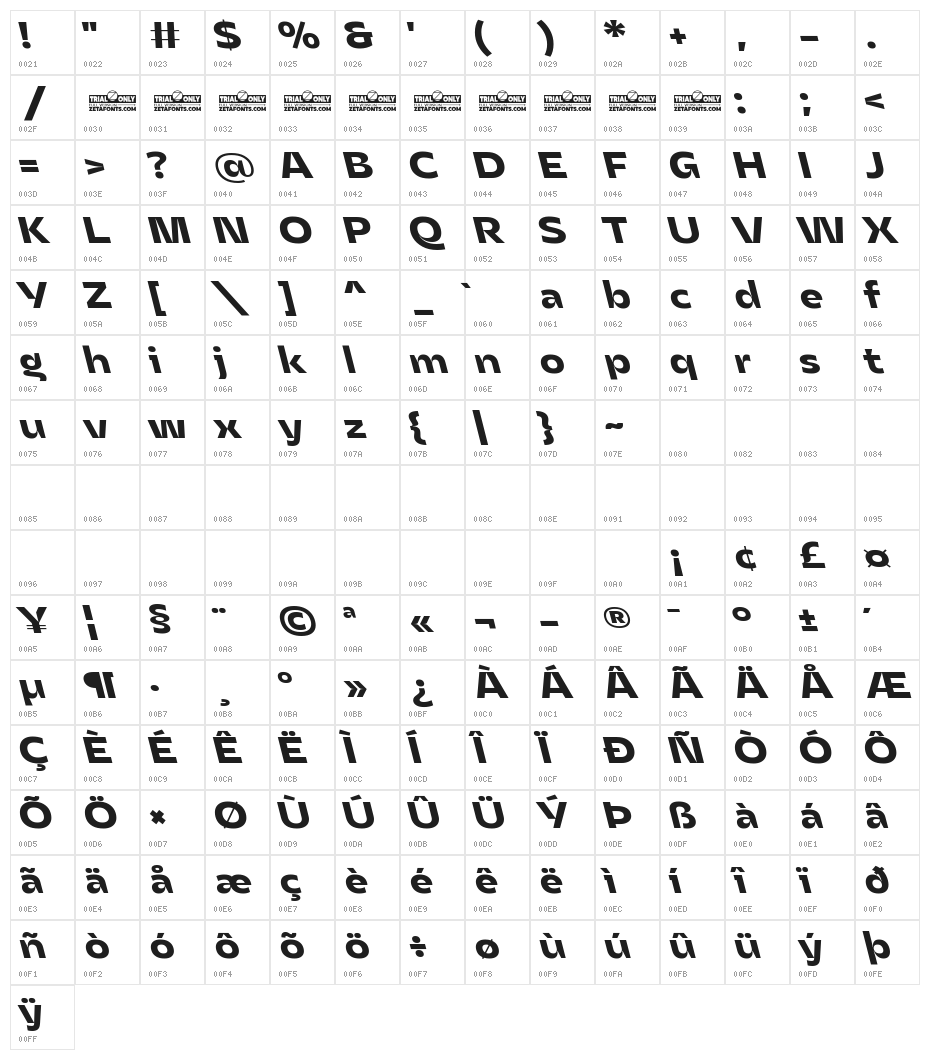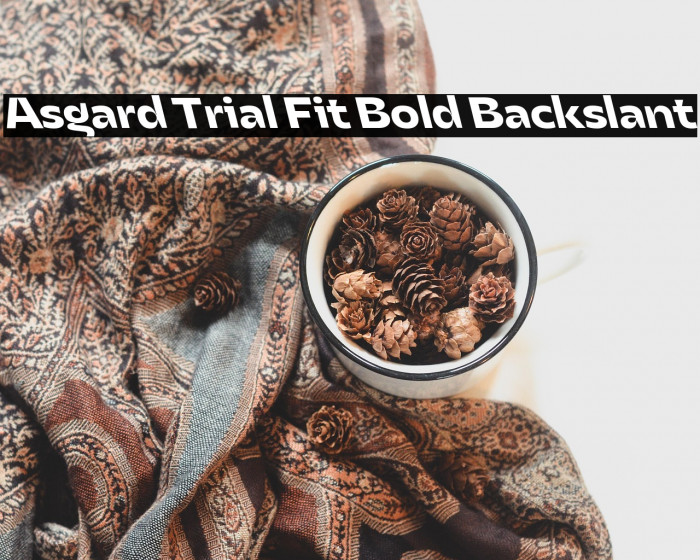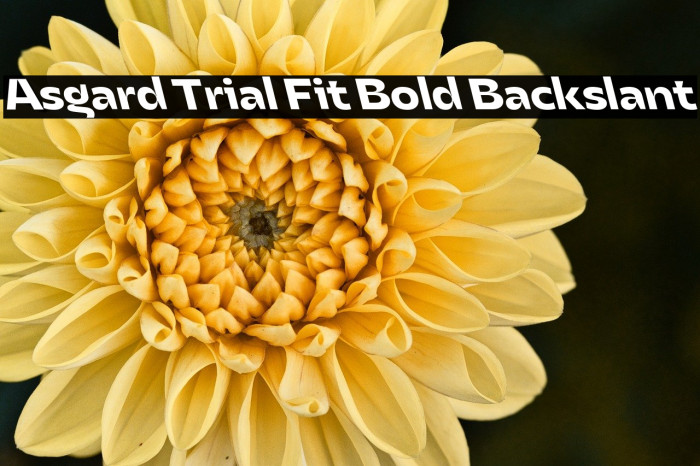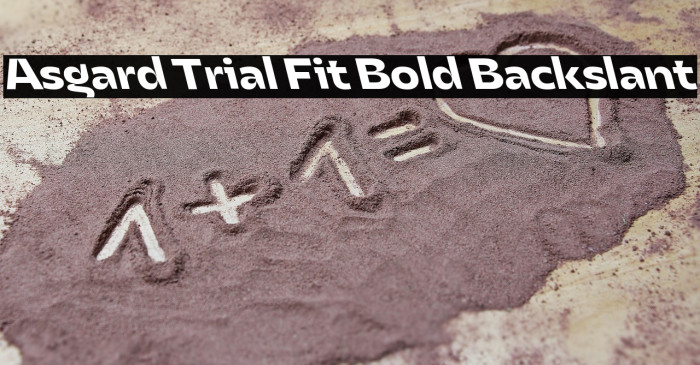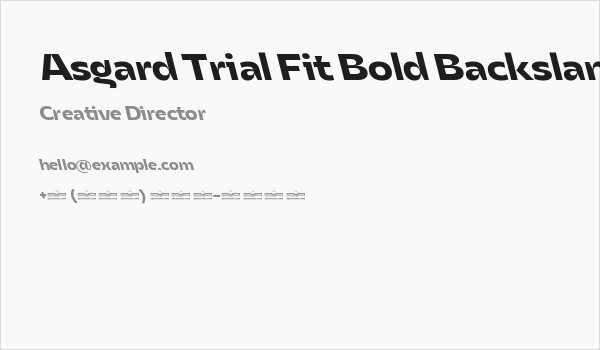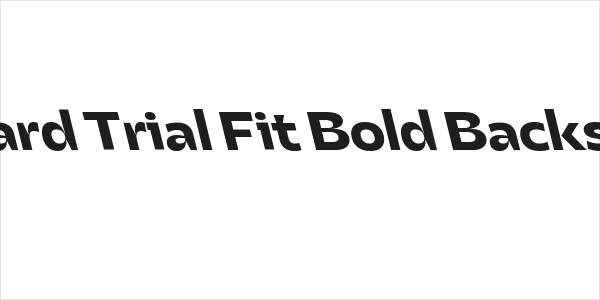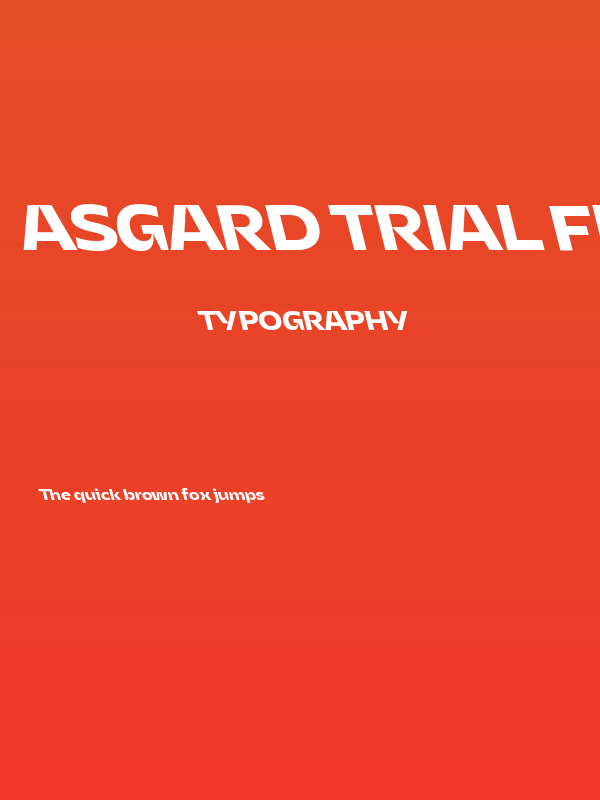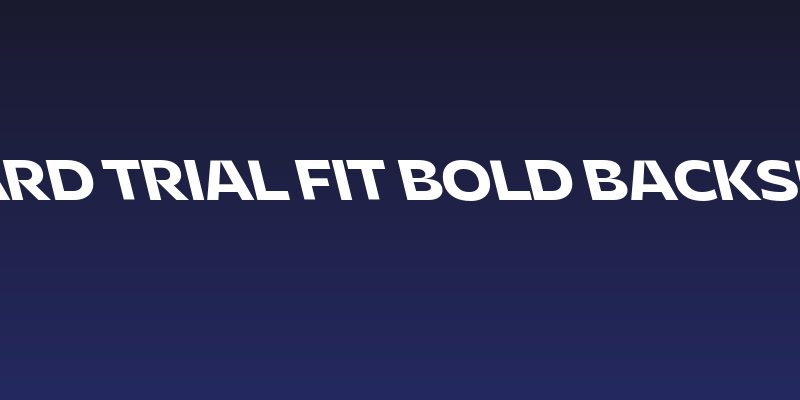
Asgard Trial Fit Bold Backslant Font
Asgard Trial Fit Bold Backslant Description
This font features a bold and dynamic style with a distinct backslant, giving it a sense of motion and energy. The characters are robust and wide, with a strong presence that commands attention. The uppercase and lowercase letters maintain a consistent weight, ensuring readability while adding a unique flair. The numerals and special characters are designed to match the boldness of the alphabet, making them suitable for impactful designs. The overall appearance is modern and slightly futuristic, ideal for projects that require a bold statement.
| Proposed Projects | Ideal for branding, headlines, posters, and any design requiring a strong, modern aesthetic. |